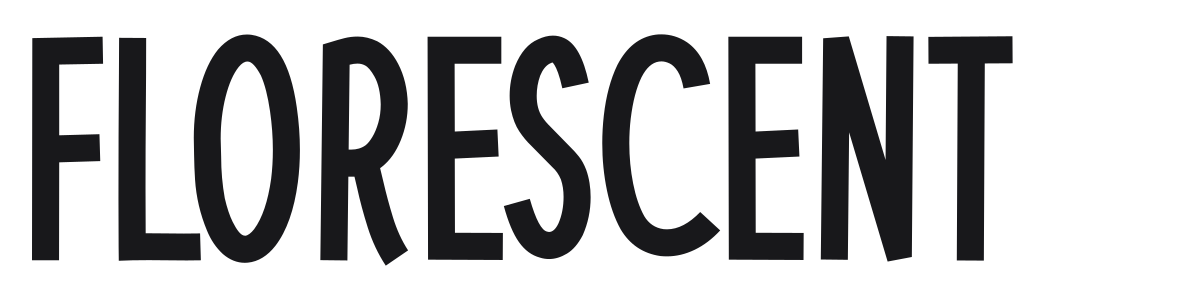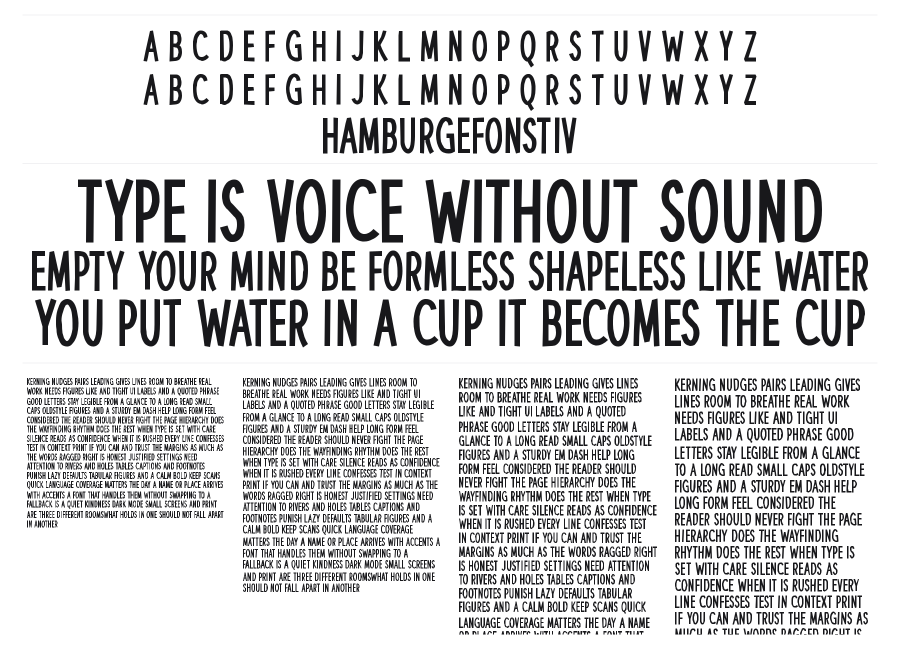
Florescent
by Hanna Bie
Florescent is a bold condensed sans-serif with tall, tightly packed proportions and a clean grotesque structure. Subtle stroke tapering at junctions keeps it from feeling mechanical, giving it just enough warmth to work across fashion, editorial, and branding contexts. It hits hard at large sizes and holds up well in tight headline settings.